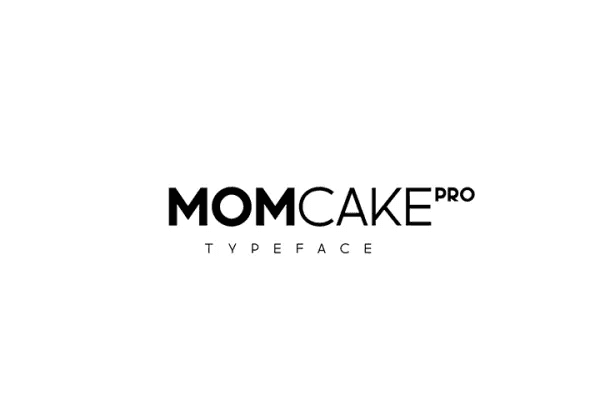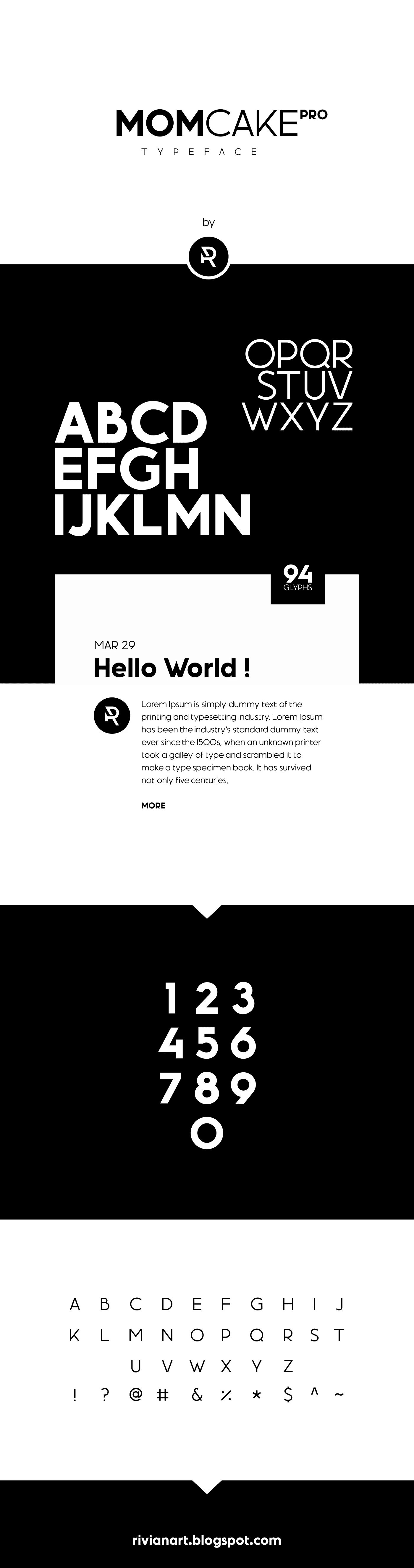
Free Momcake Geometric Sans Serif Font is a very amazing sans serif font. It is coming with a geometric and measure character that will make your project look clean and elegant as well. This free font is available with two types of font which are bold and thin. It is also suitable for logotype, logos, business cards, quotes, posters, gift cards, company branding, and more. However, this font is ready for the OTF format file with a personal license use. But, get more features by contact the author for commercial license.